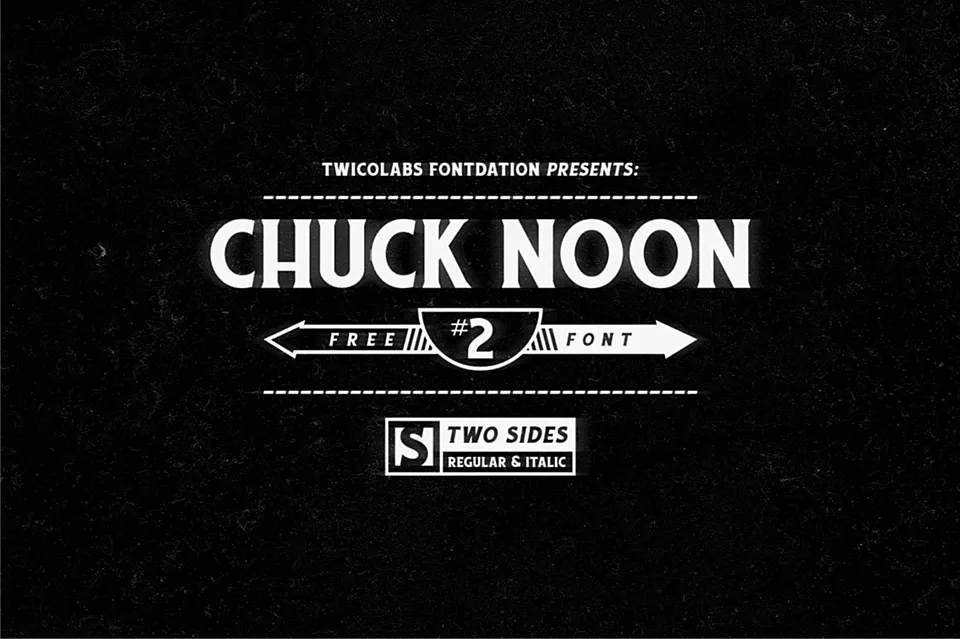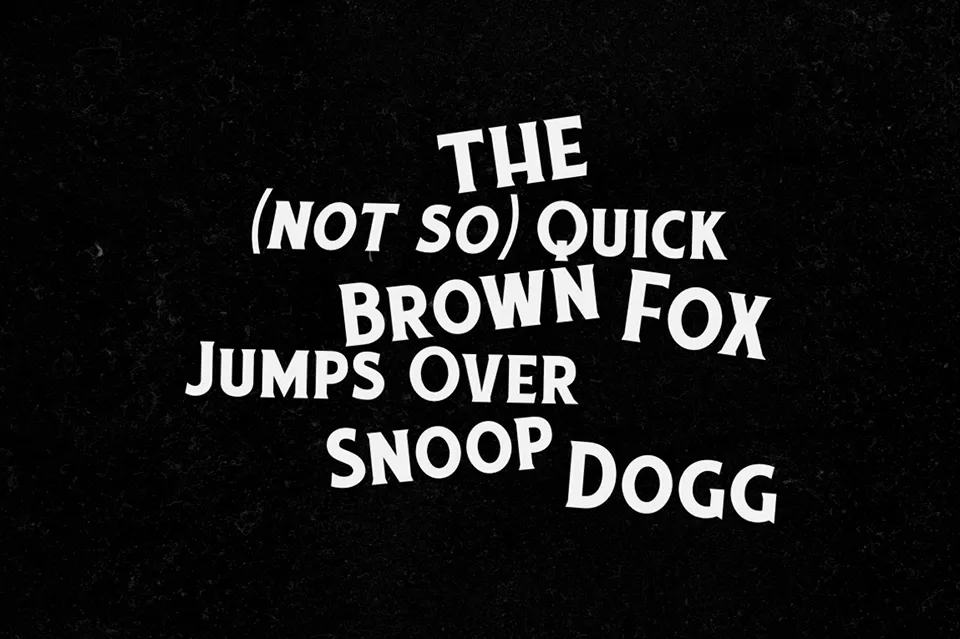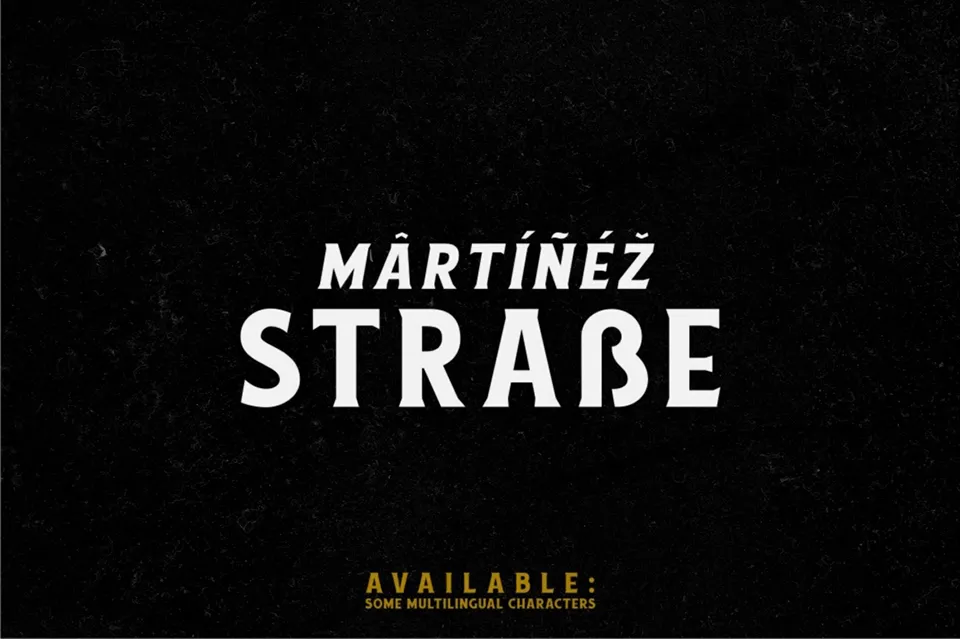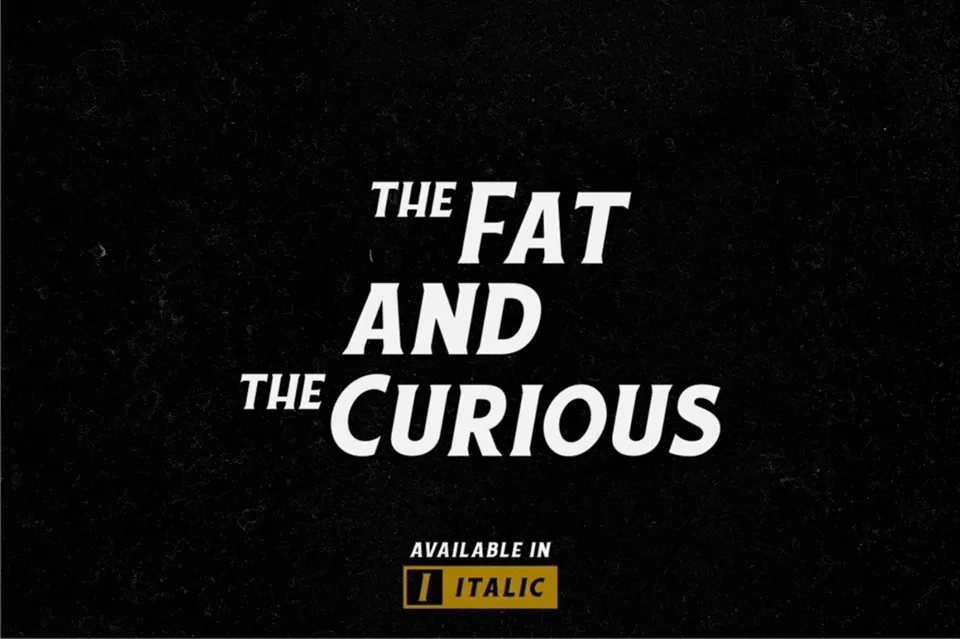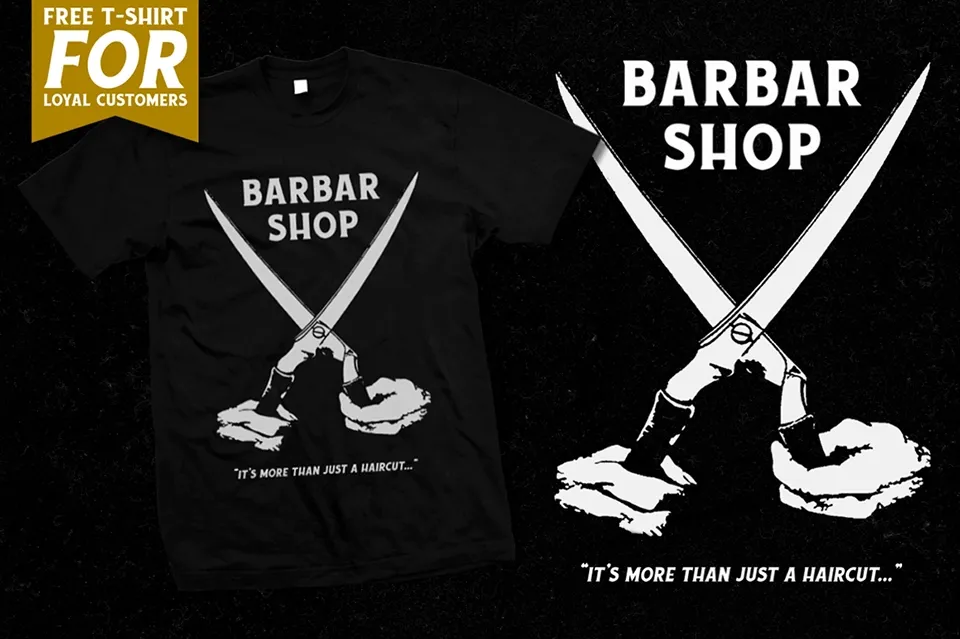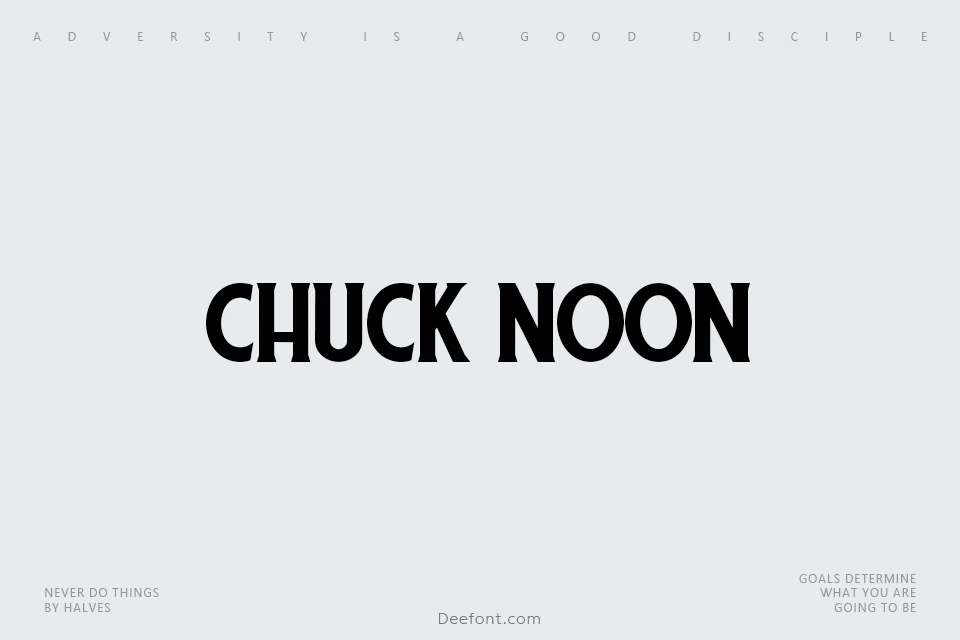
Chuck Noon 2 Font
Chuck Noon 2 Font is a refreshed and rearranged display typeface from Twicolabs Fontdation. This updated version refines its predecessor with tweaks to characters, added multilingual support, and a brand-new italic style, offering more versatility. Chuck Noon 2 features a distinctive, tough-looking aesthetic suitable for a wide range of design projects. Its bold appearance makes it ideal for headlines, posters, logos, and any design needing a strong visual impact. Available in OTF and TTF formats, this meticulously crafted font is free for both personal and commercial use, making it a valuable addition to any designer’s toolkit.